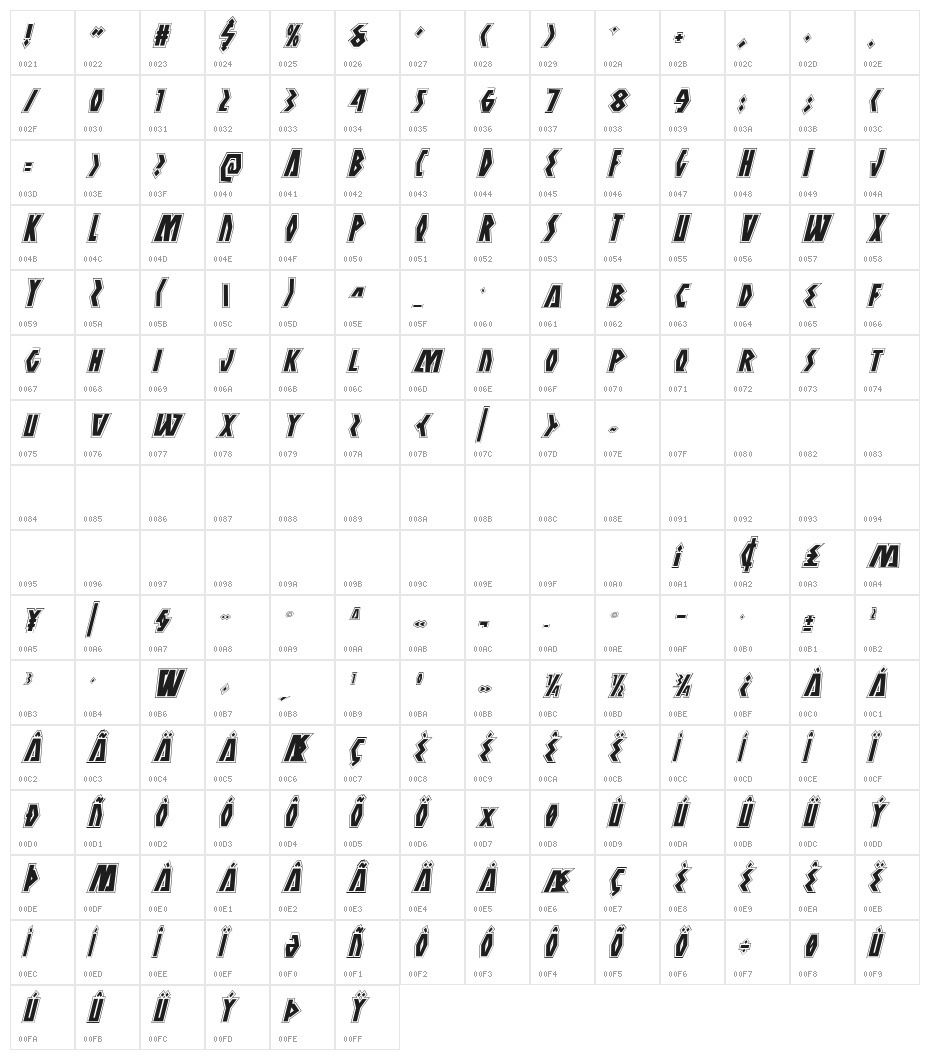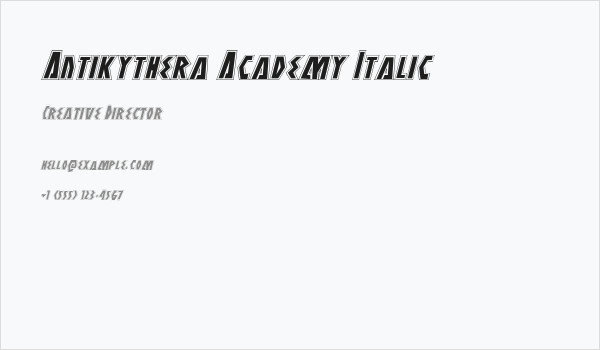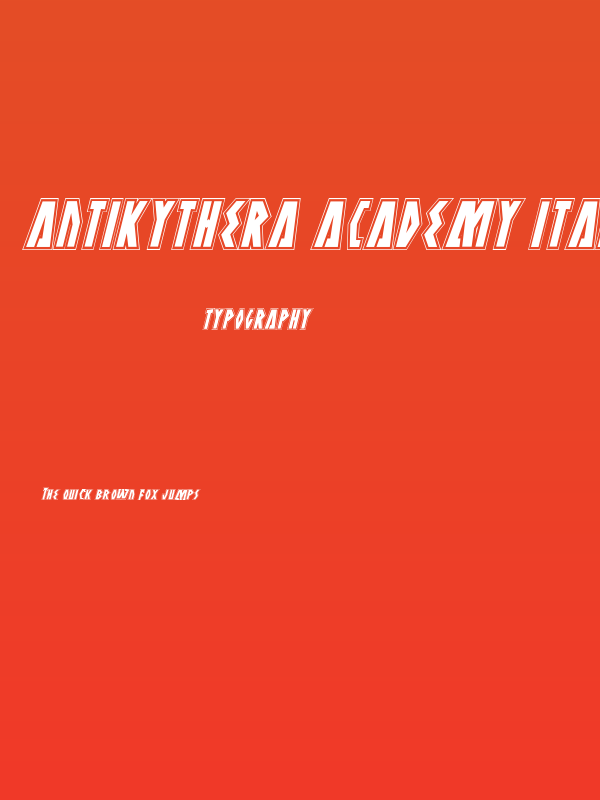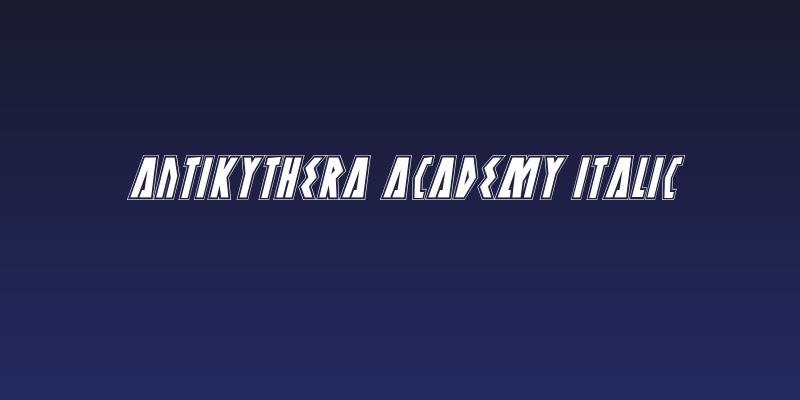
Antikythera Academy Italic Font
Antikythera Academy Italic Description
This font features a bold, geometric design with a distinct italic slant, creating a dynamic and energetic appearance. The characters are outlined with a thick black border, enhancing their three-dimensional effect. Each letter and number is crafted with sharp angles and straight lines, giving it a futuristic and edgy look. The font's unique style makes it stand out, with a strong emphasis on angularity and boldness. It is well-suited for projects that require a modern and impactful visual statement.
| Overall Style | Futuristic, Edgy |
| Proposed Projects | Ideal for video game titles, sci-fi movie posters, tech branding, and edgy graphic design projects. |